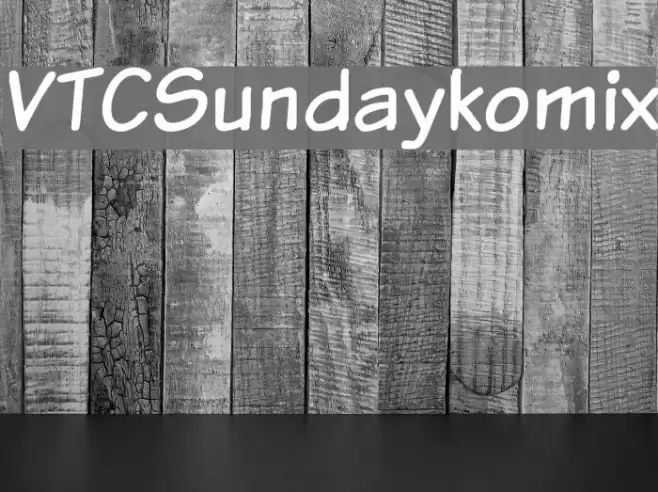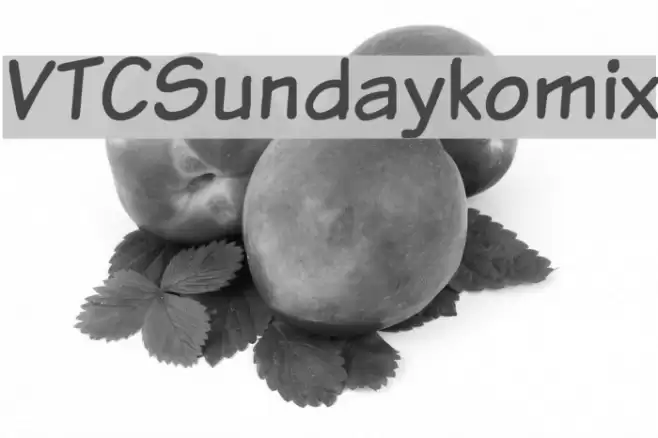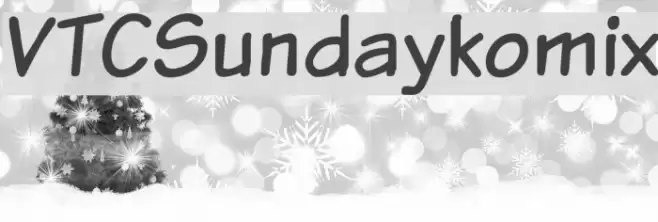
VTCSundaykomix Font
VTCSundaykomix Description
This playful and energetic font features a handwritten style with rounded edges and a casual, informal appearance. The characters are bold and slightly irregular, giving them a lively and dynamic feel. The uppercase and lowercase letters maintain a consistent style, with a slight slant that adds to the font's whimsical nature. Numbers and special characters are designed to match the overall aesthetic, making them suitable for a variety of creative projects. The font's friendly and approachable look makes it ideal for designs that aim to convey a sense of fun and creativity.
A playful, handwritten font with rounded edges and a casual style from Uncategorized fonts.
- Proposed Projects: Great for comic books, children's books, playful branding, and creative posters.
- Overall Style: Playful